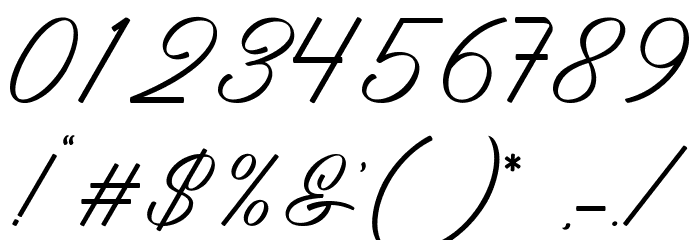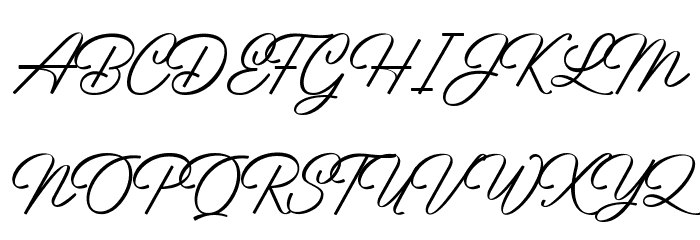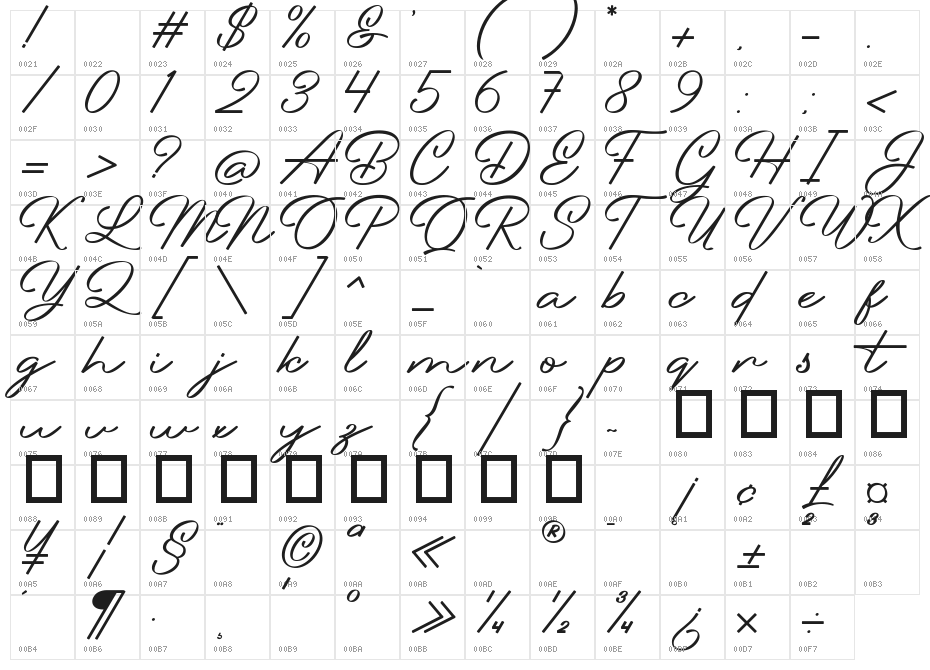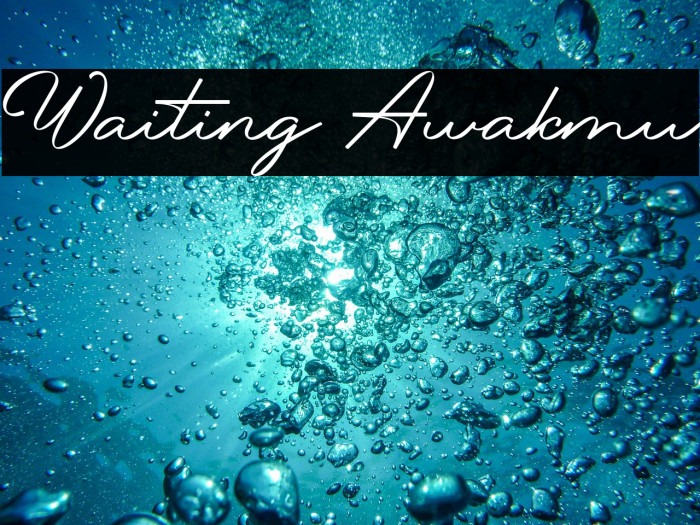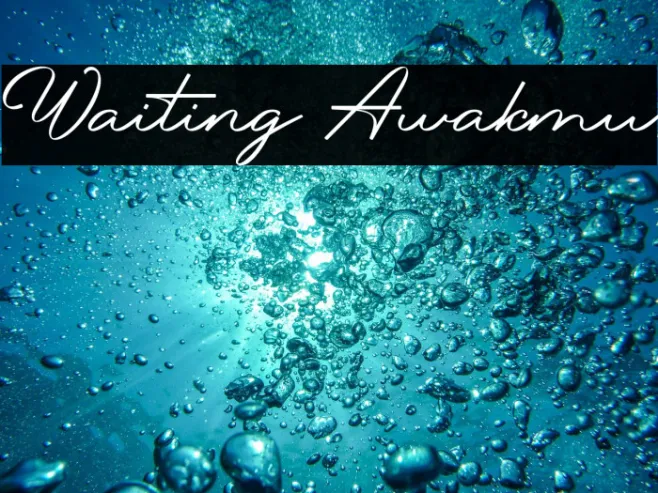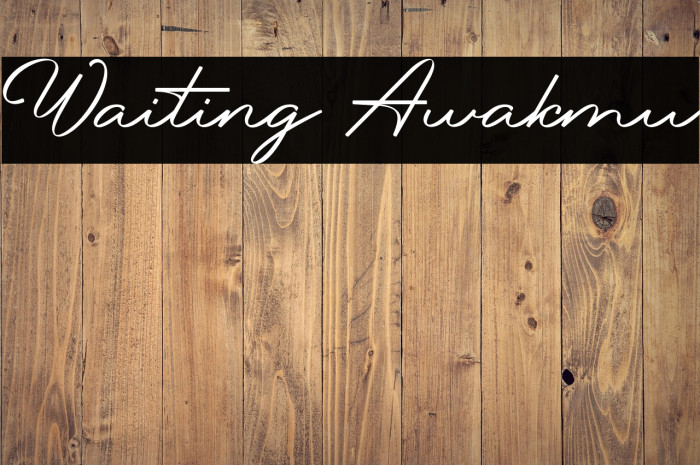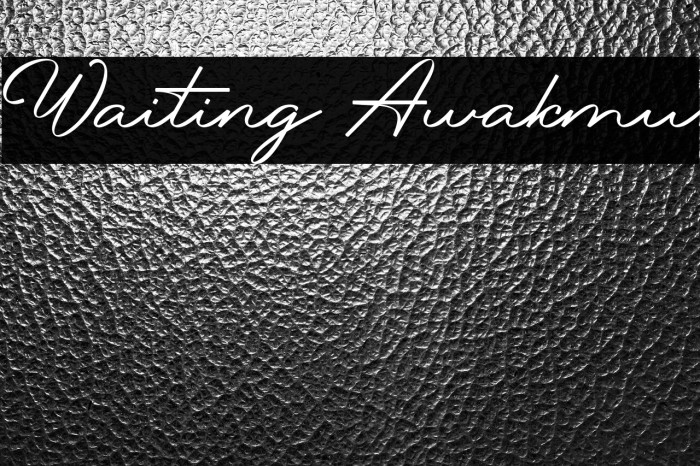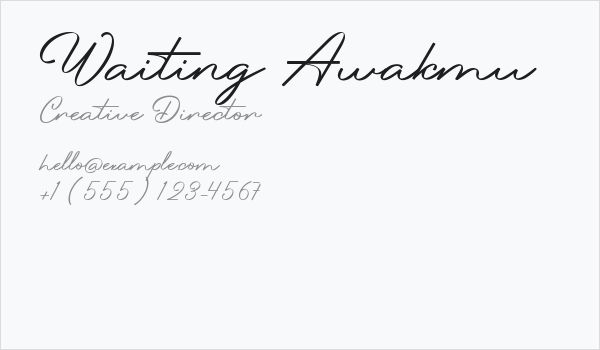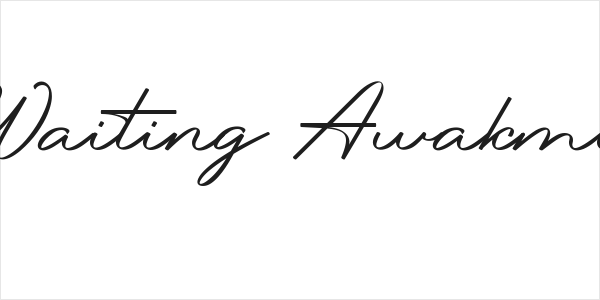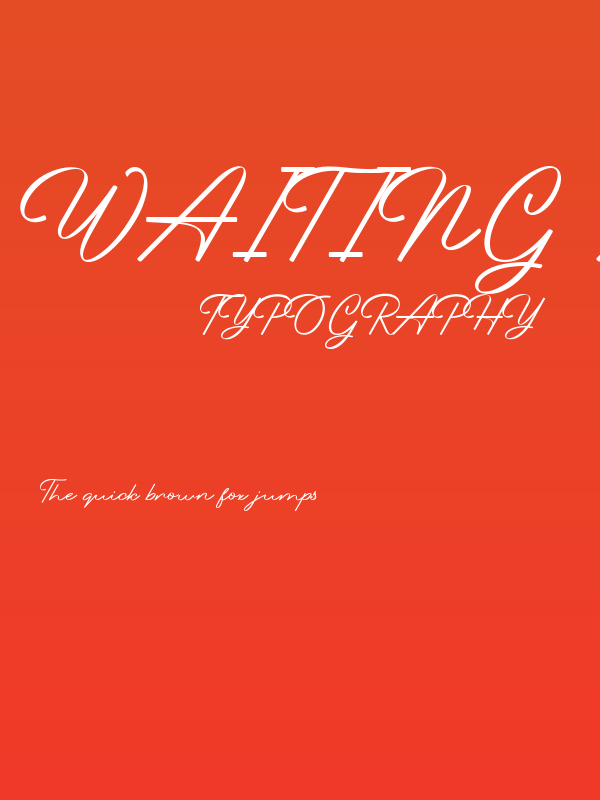
Waiting Awakmu Font
Waiting Awakmu Description
This font exudes elegance and sophistication with its flowing, cursive script style. The letters are interconnected, creating a seamless and fluid appearance that mimics natural handwriting. The uppercase letters are slightly more embellished, adding a touch of formality, while the lowercase letters maintain a consistent, smooth flow. The numerals and special characters are designed to complement the script, maintaining the overall aesthetic. This font is ideal for projects that require a personal or artistic touch, such as invitations, greeting cards, or branding materials.
| Overall Style | Elegant, Artistic |
| Use Case | Invitations, Greeting cards, Branding |
| Proposed Projects | Ideal for wedding invitations, greeting cards, personal branding, and artistic projects. |